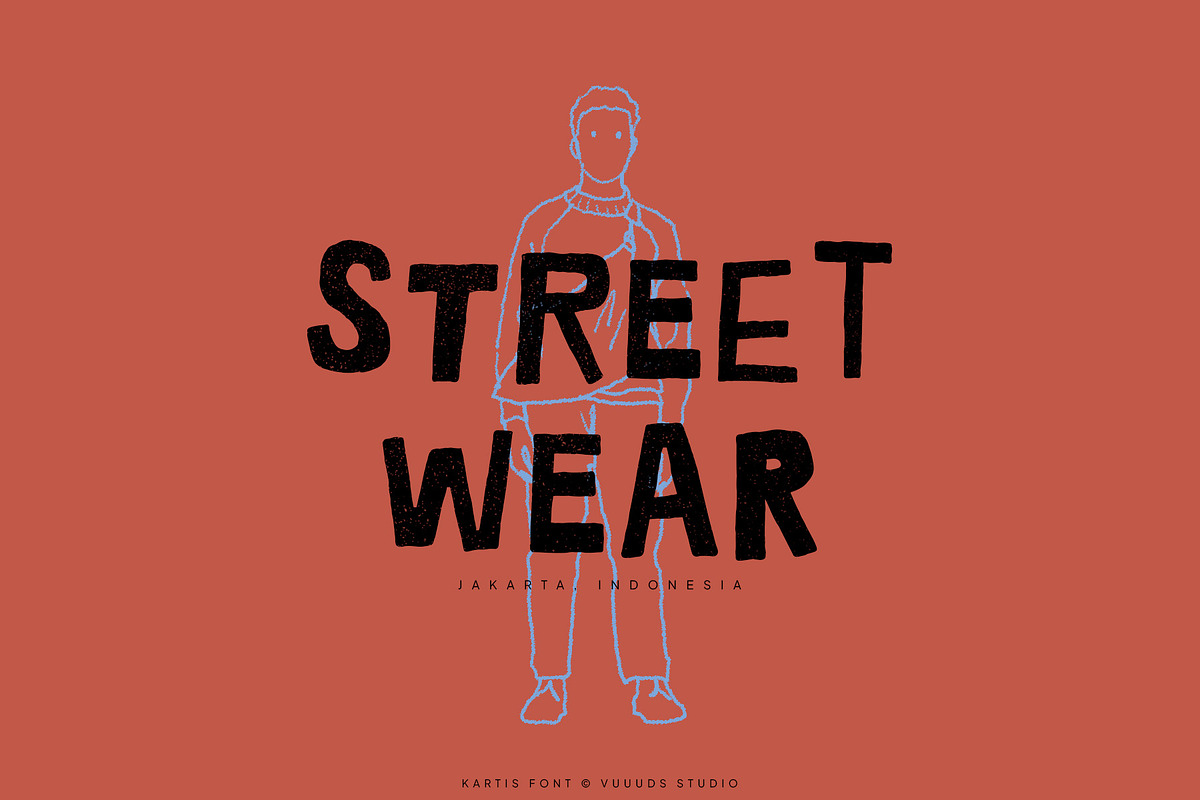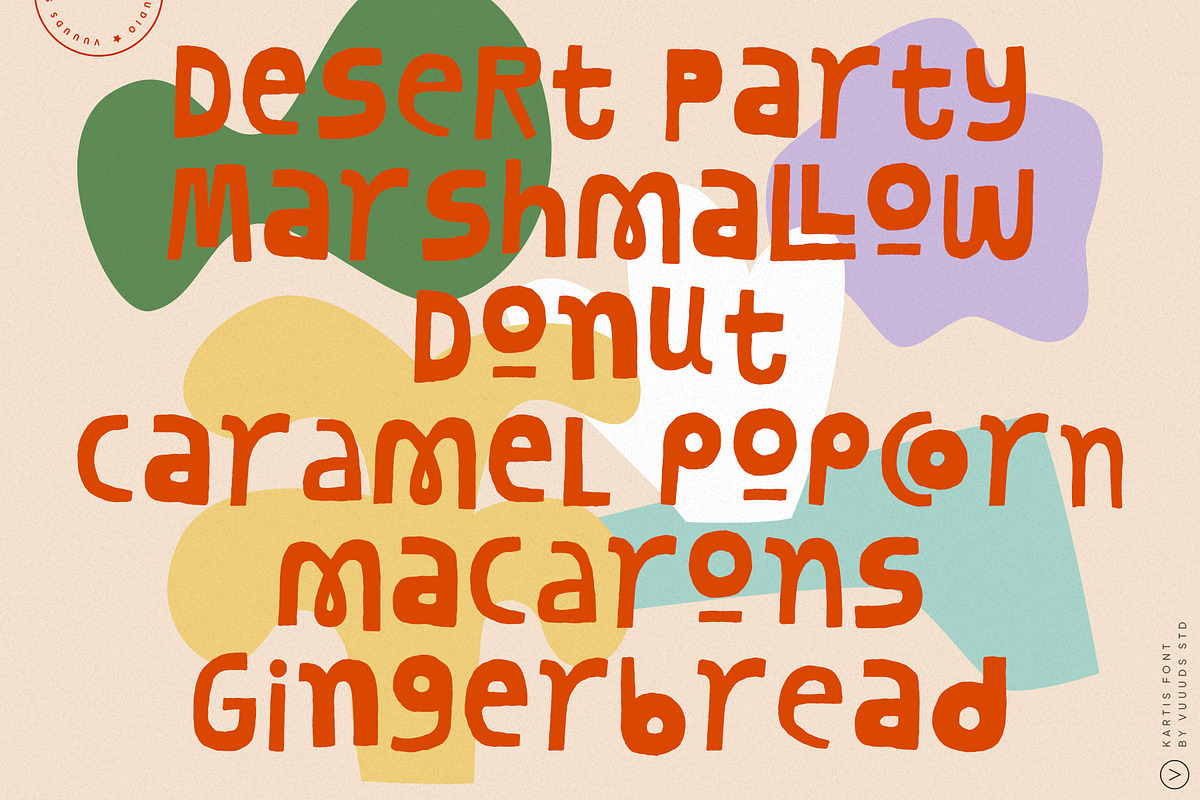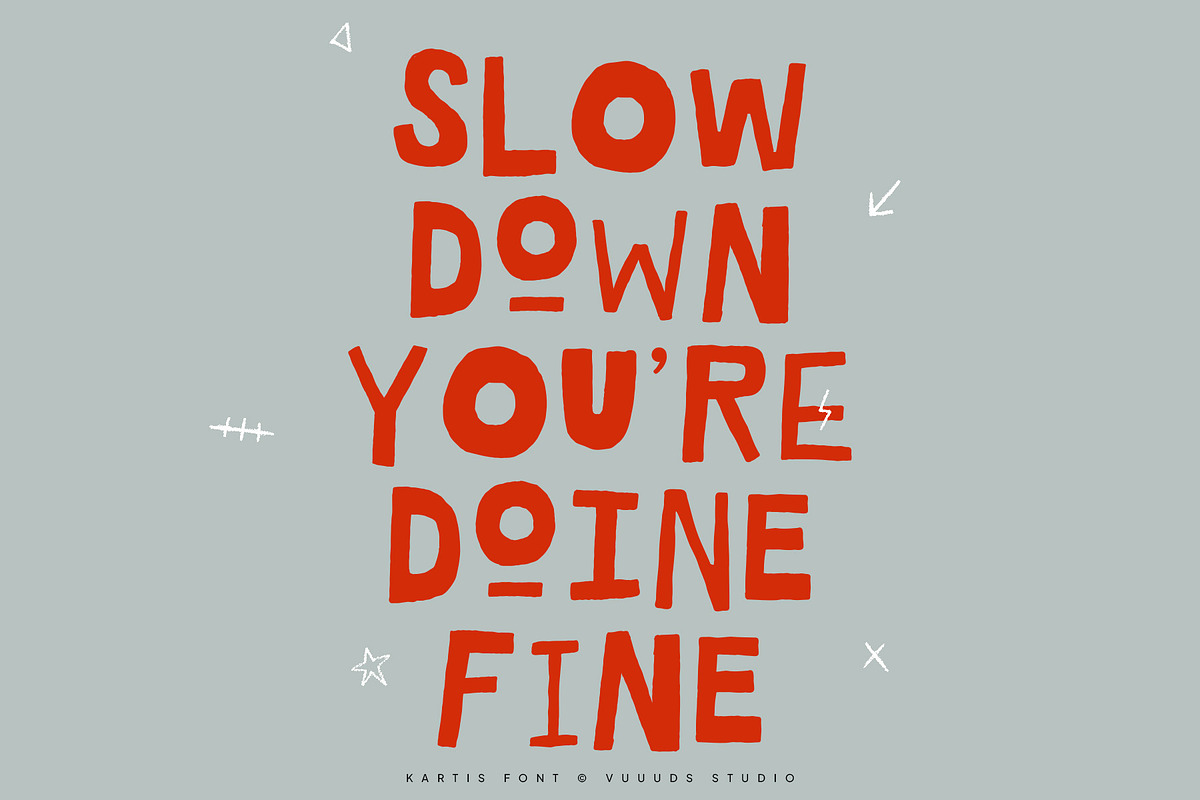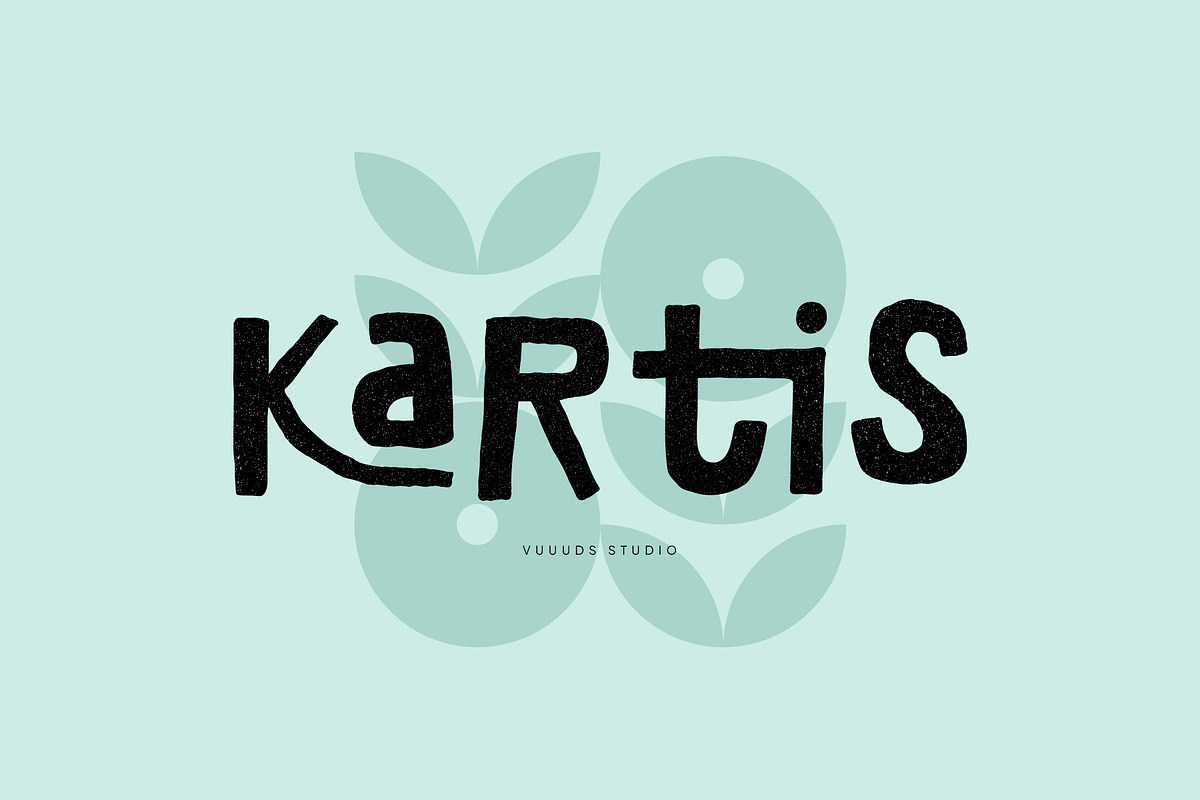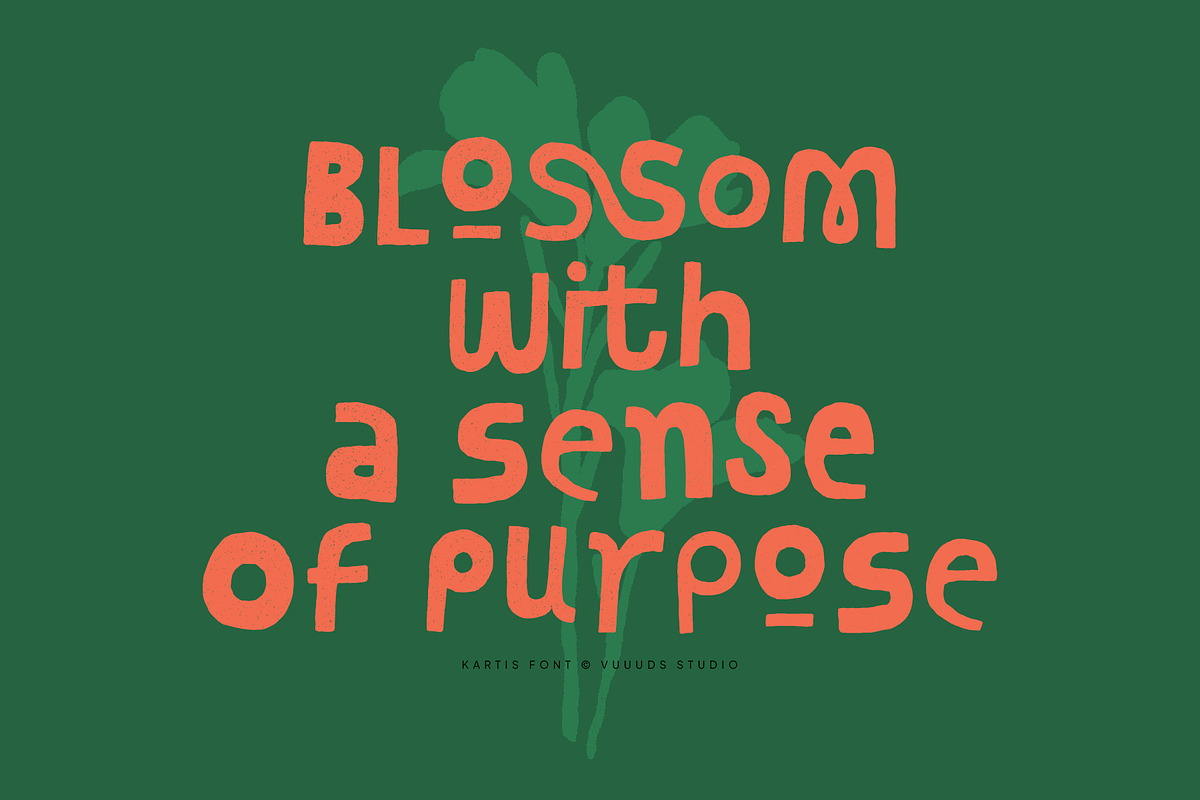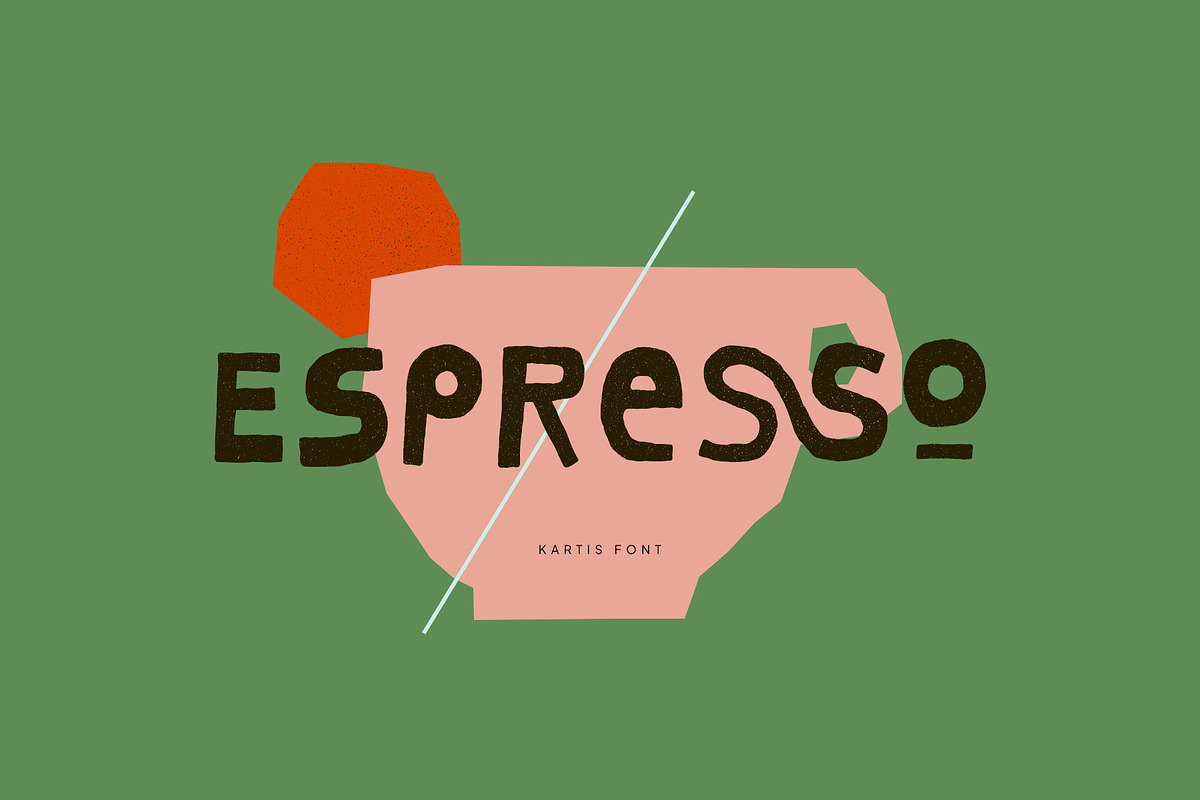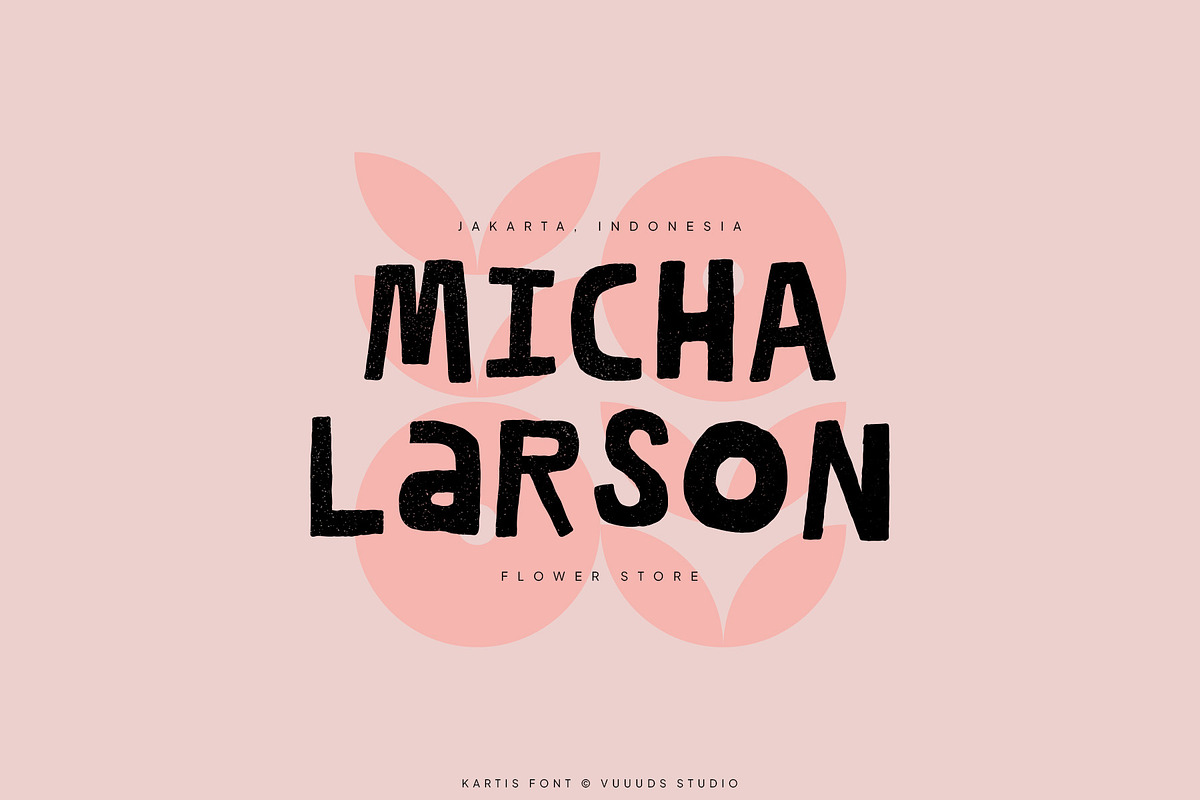
Kartis
Meet Kartis, a premium rough sans-serif display font designed to bring an authentic, hand-crafted edge to modern digital design. Combining a solid, bold structure with softly rounded geometric profiles, this font delivers high-impact visibility without losing its warm, approachable vibe.
The true magic lies within its collection of unique, custom ligatures, allowing you to instantly transform standard text into a bespoke logotype.